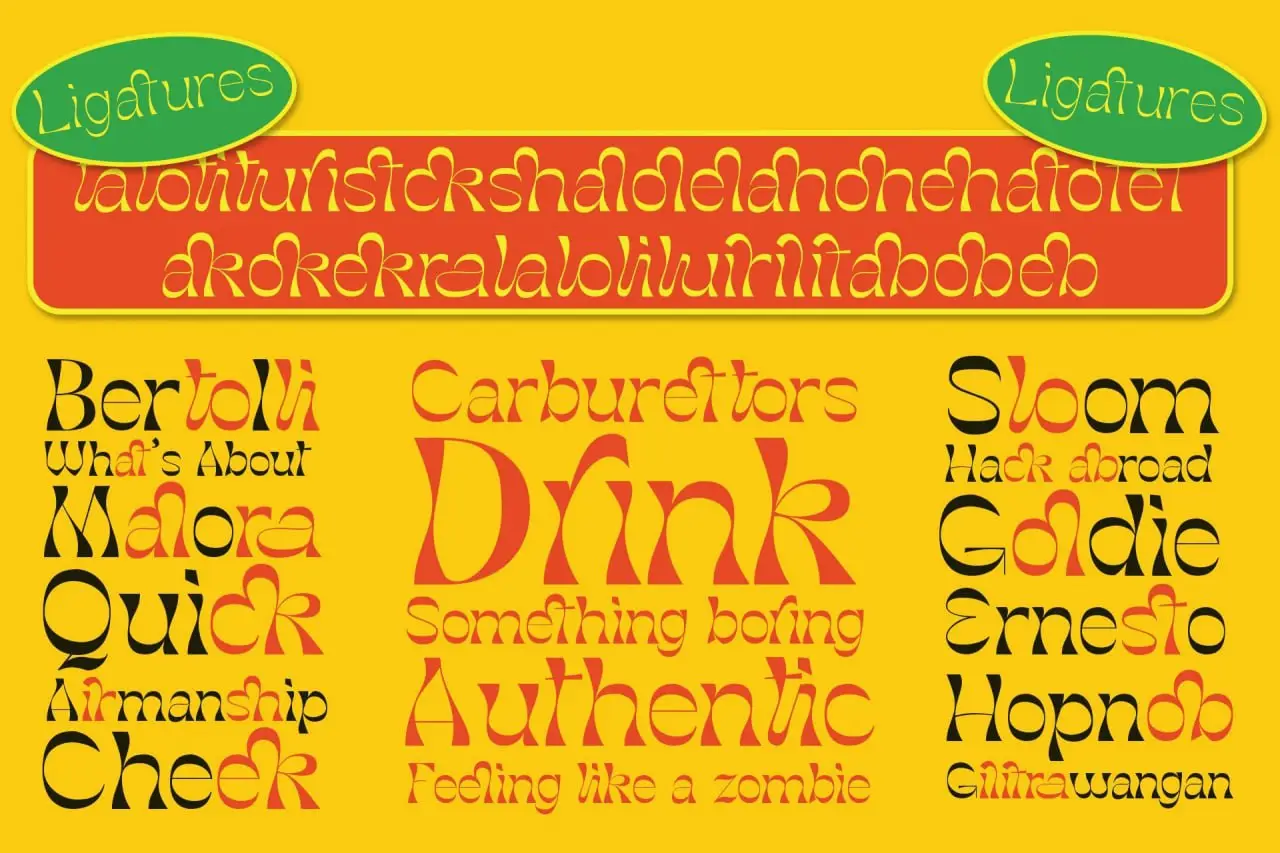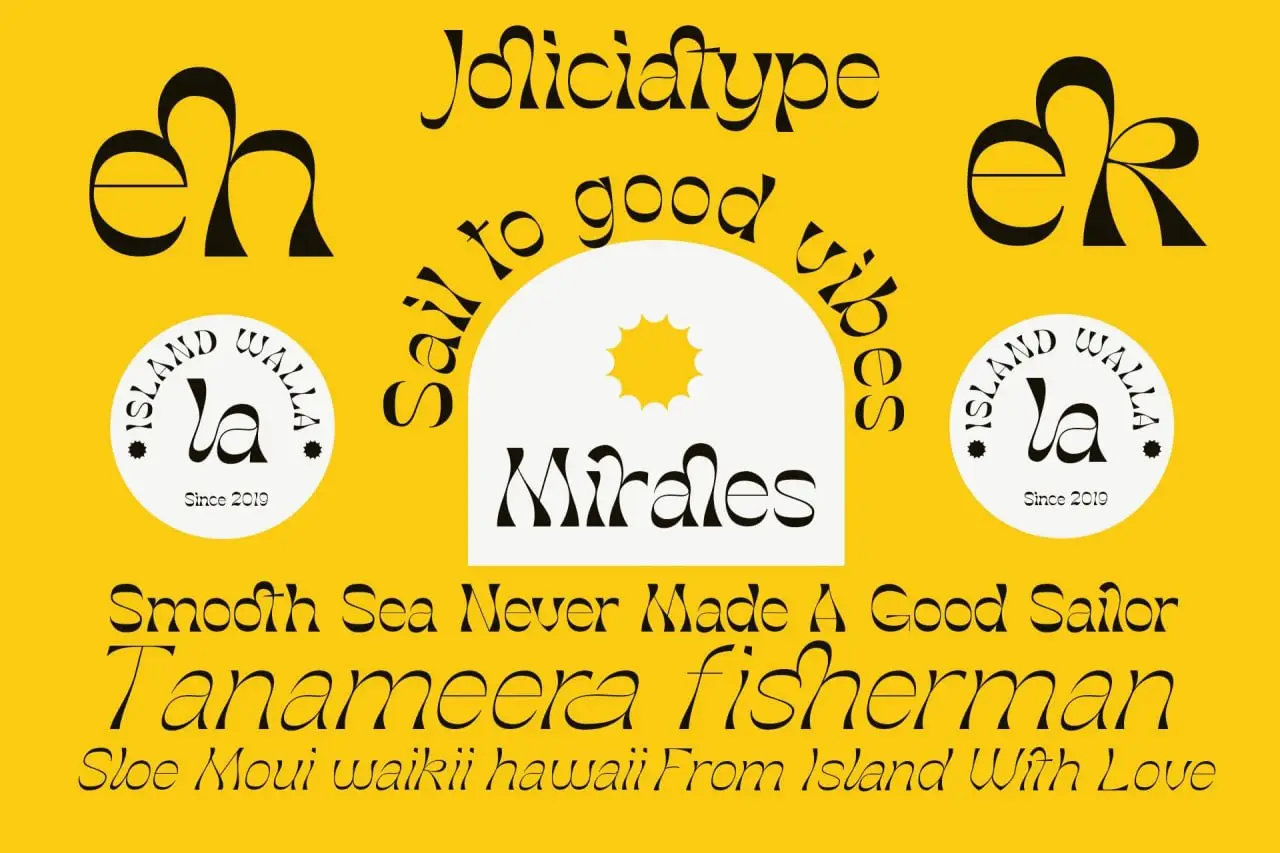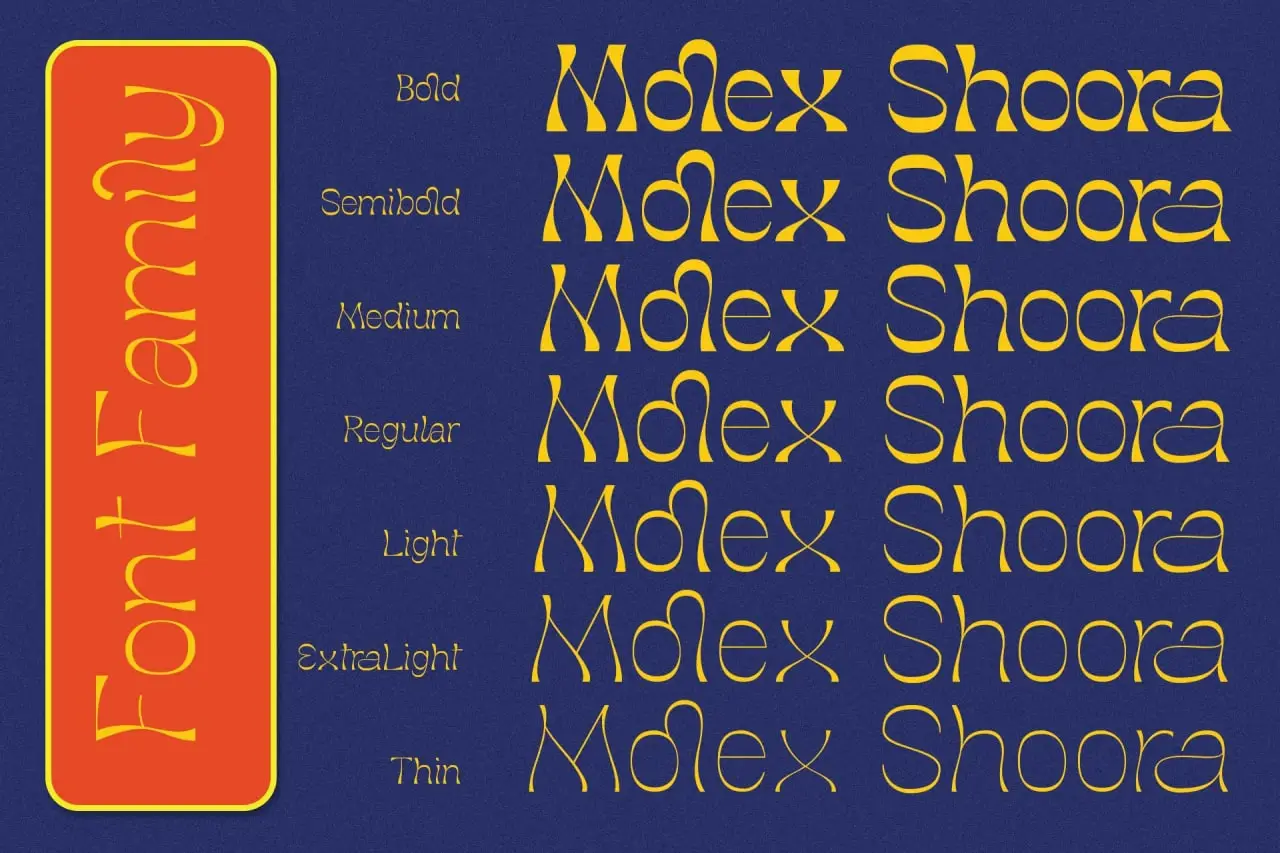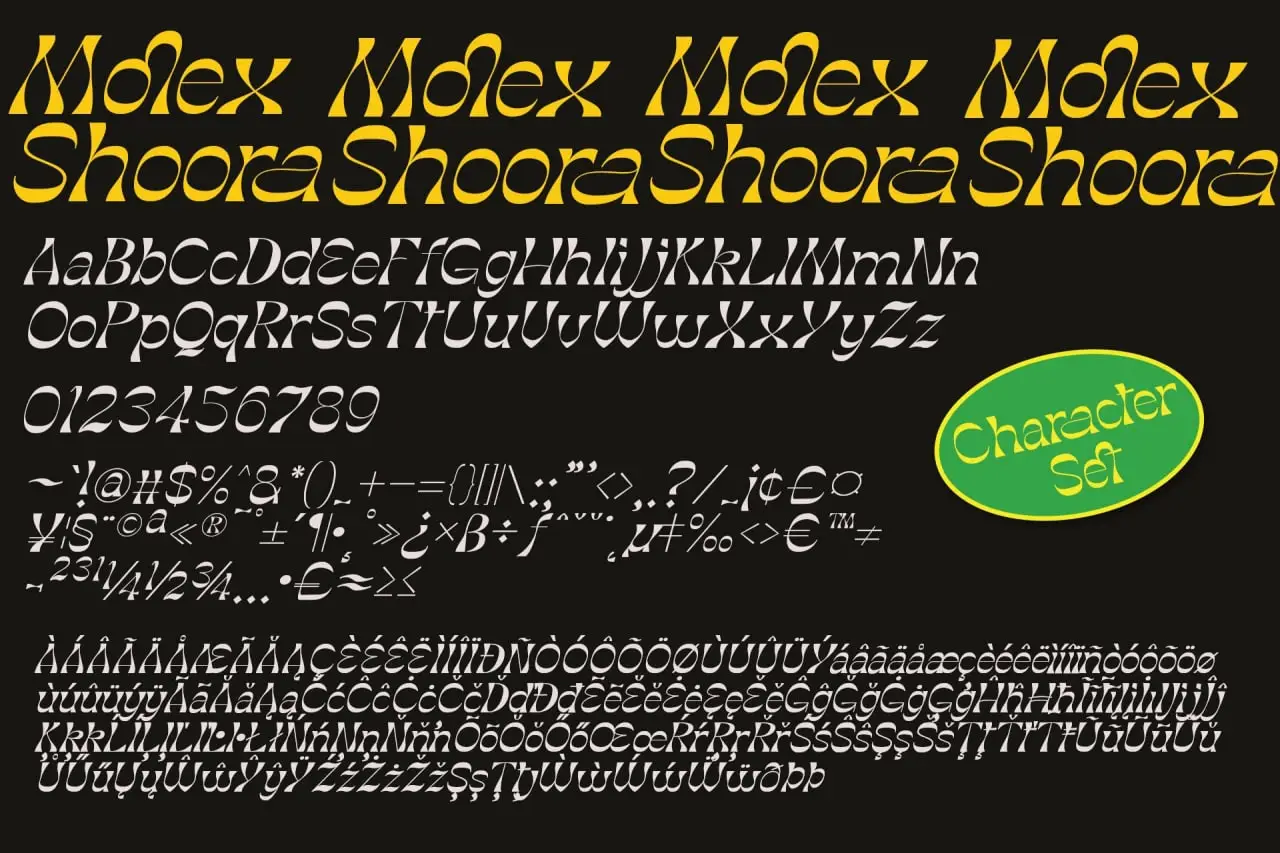
Molex Shoora-Reverse Contrast Font
The Molex Shoora-Reverse Contrast Font is a unique typeface designed to stand out in both digital and print environments. With its striking reverse contrast style, this font adds a modern touch to any project.
• Distinctive reverse contrast design
• Multiple font weights for versatility
• Clean lines and elegant curves
• Perfect for web design and user interfaces
• Great for print projects such as posters and business cards